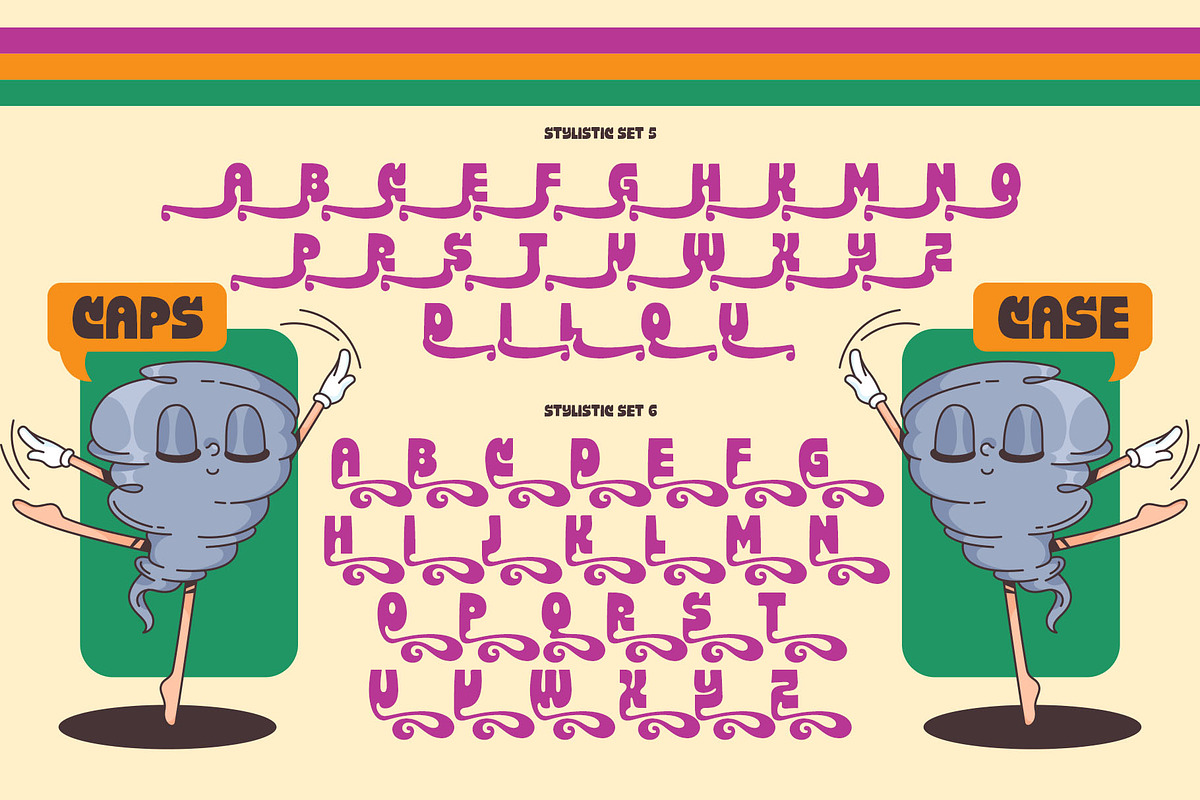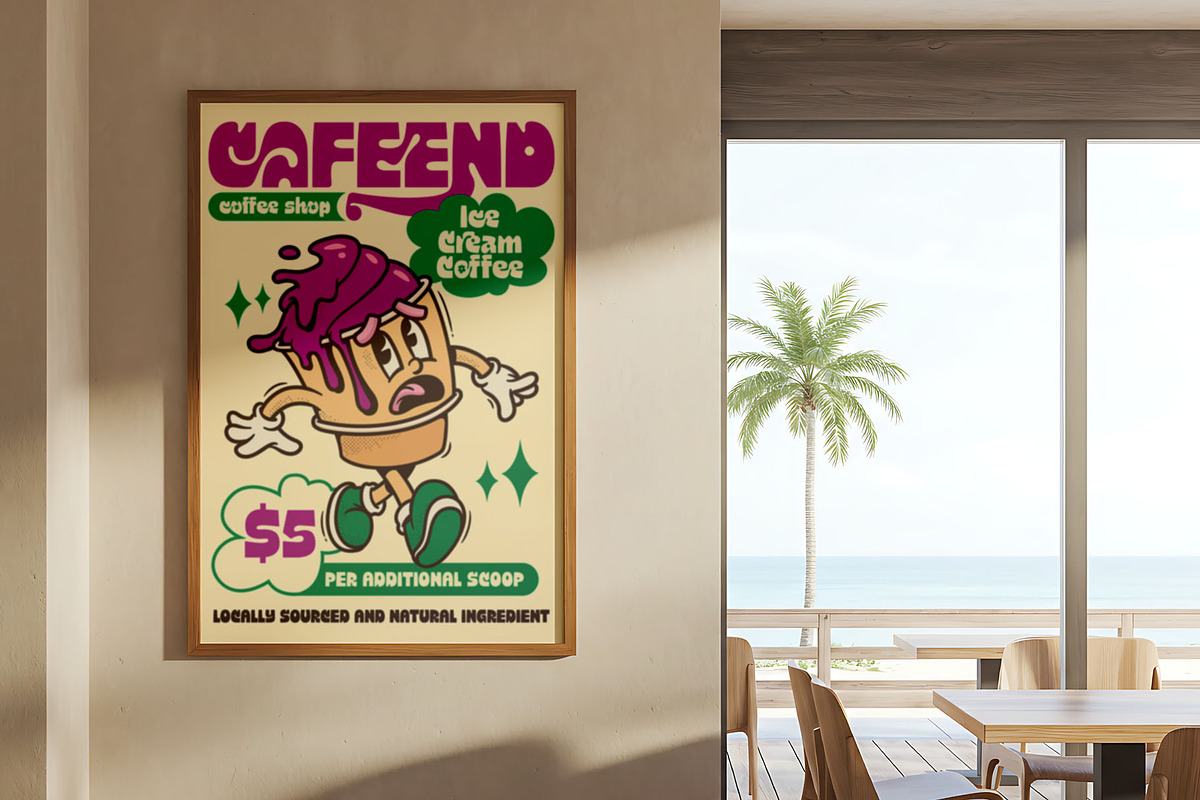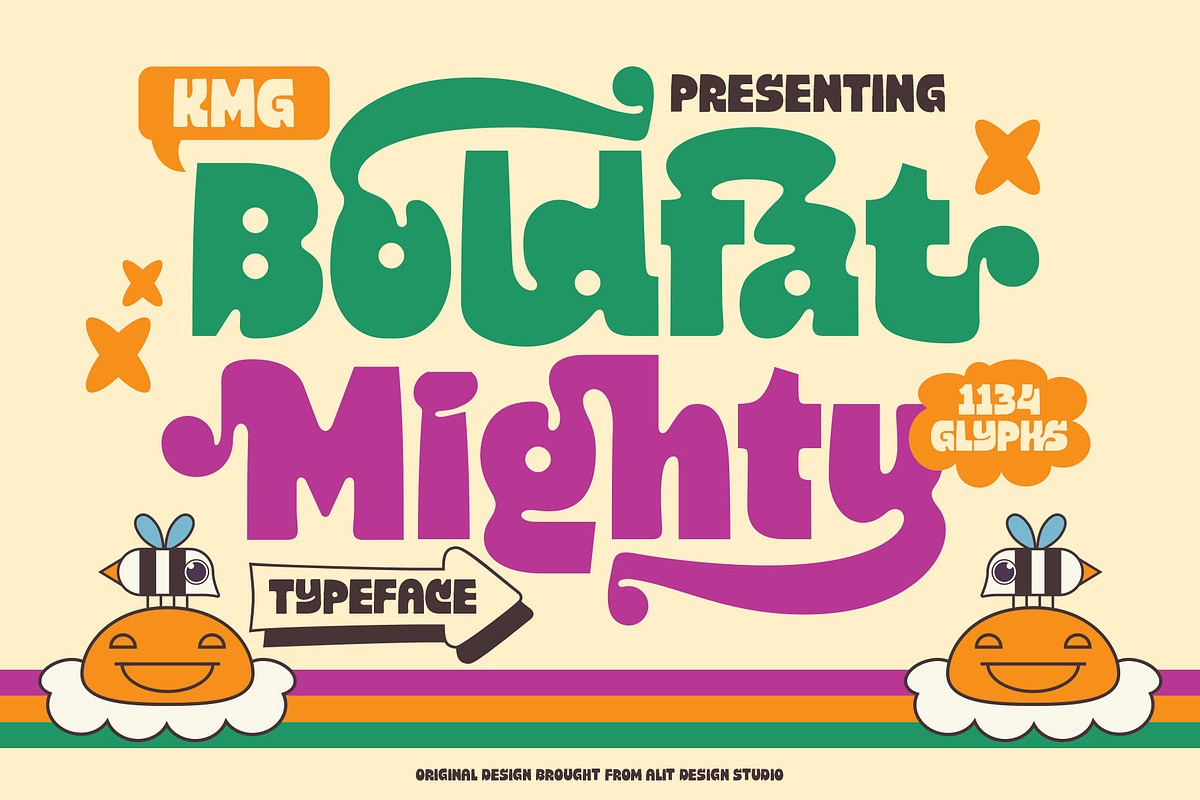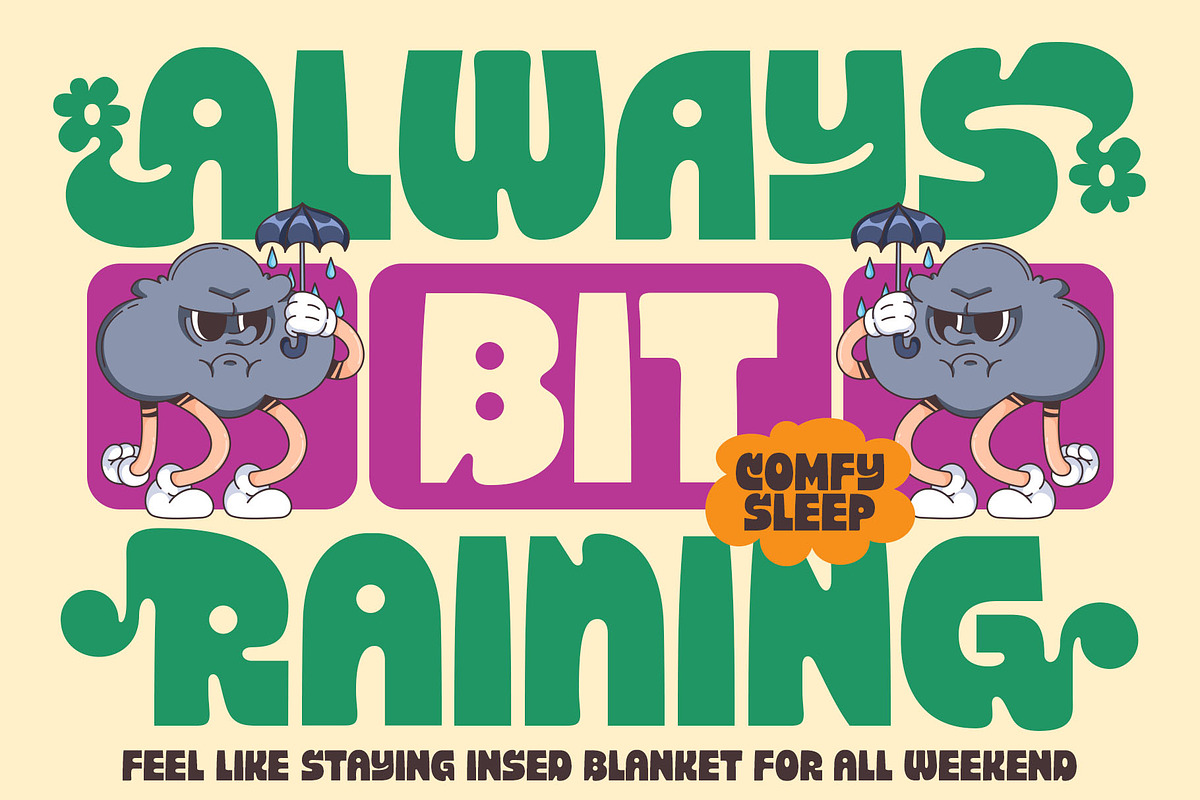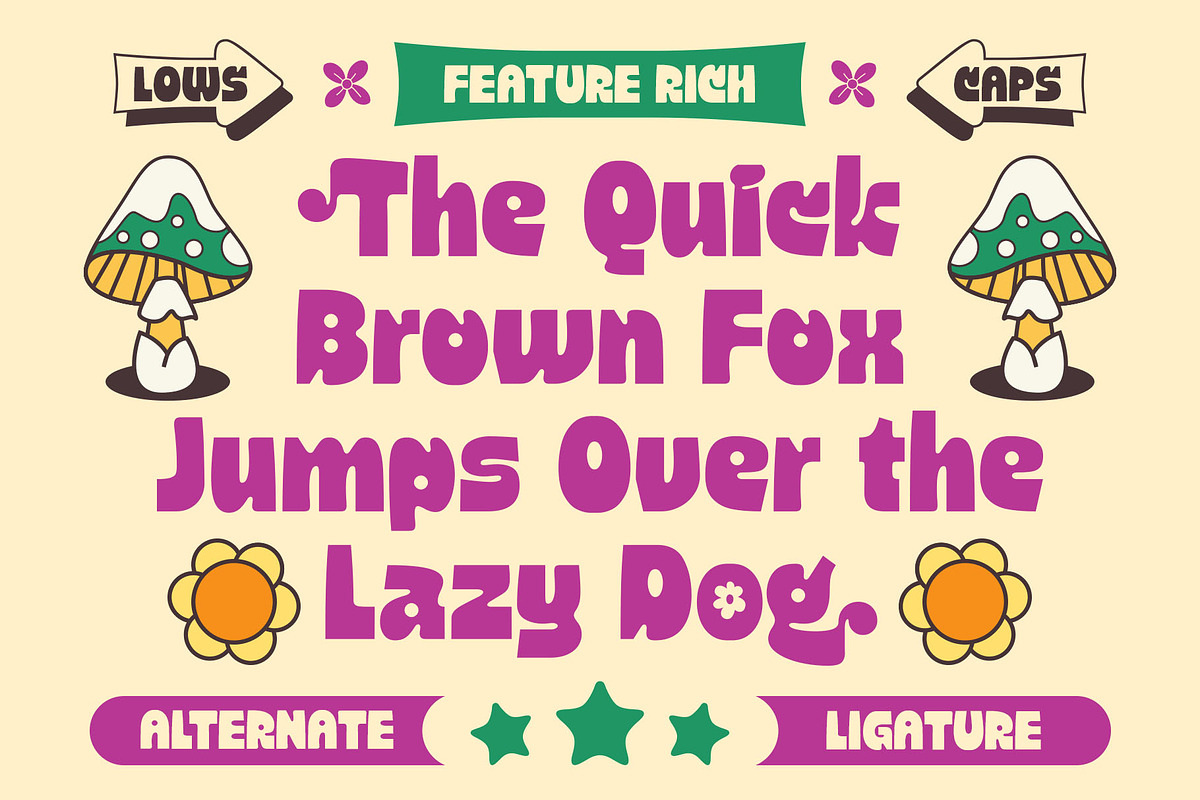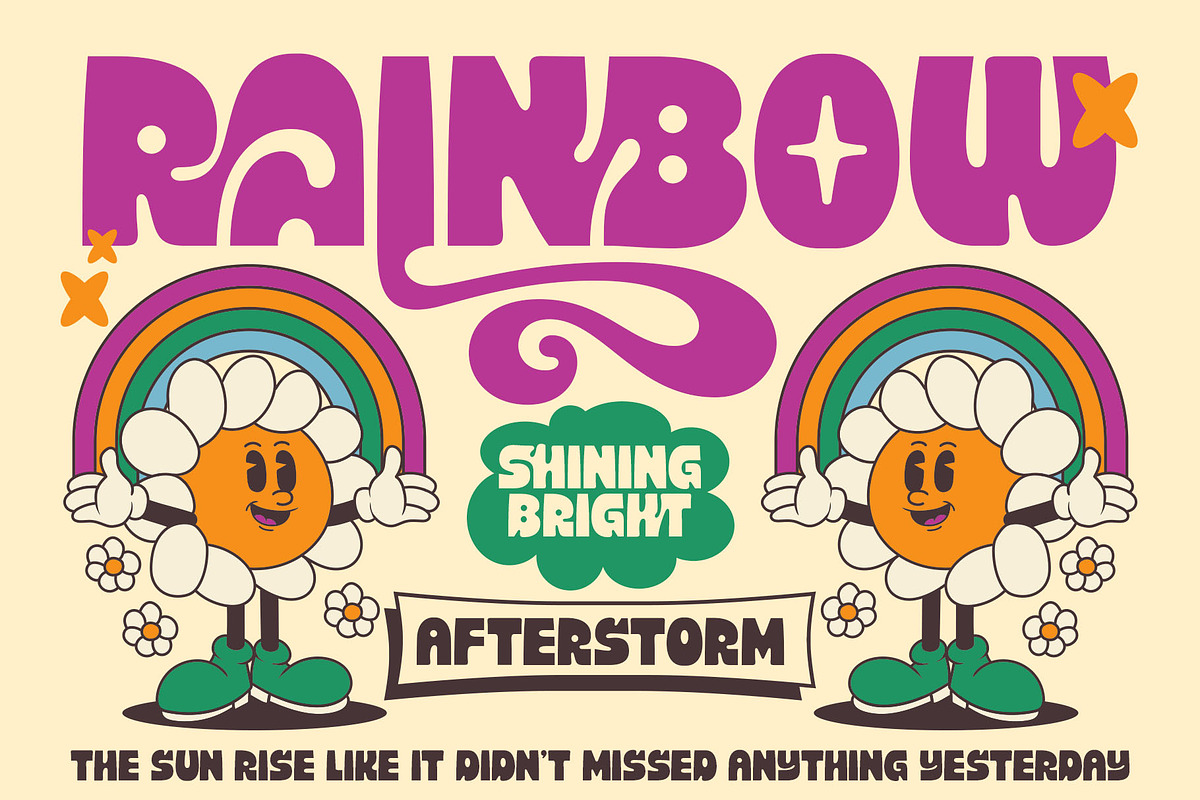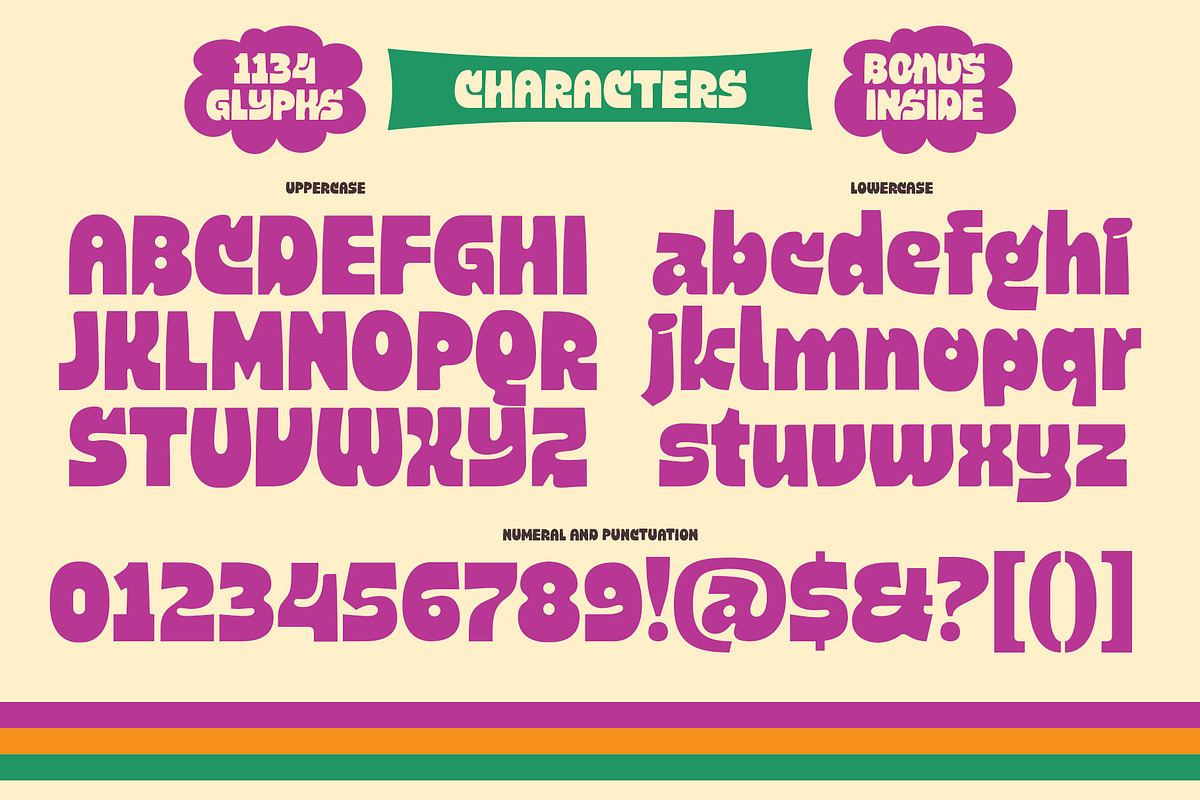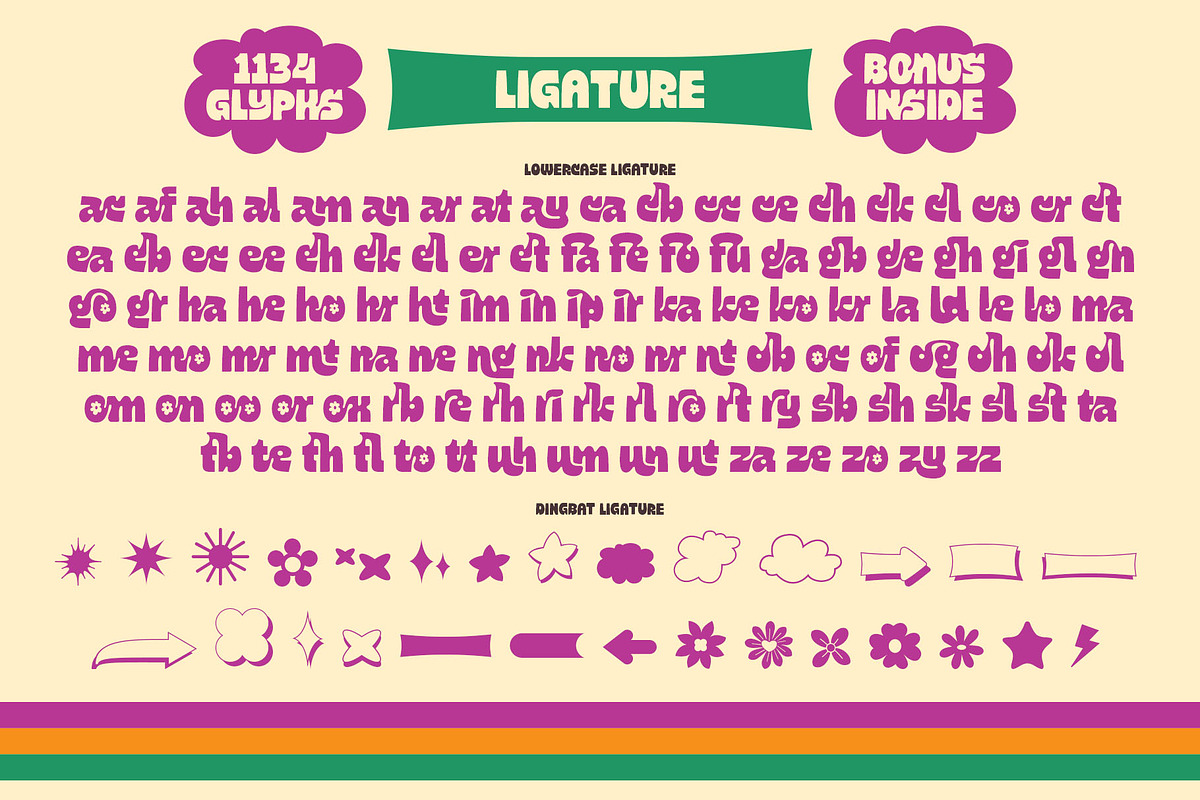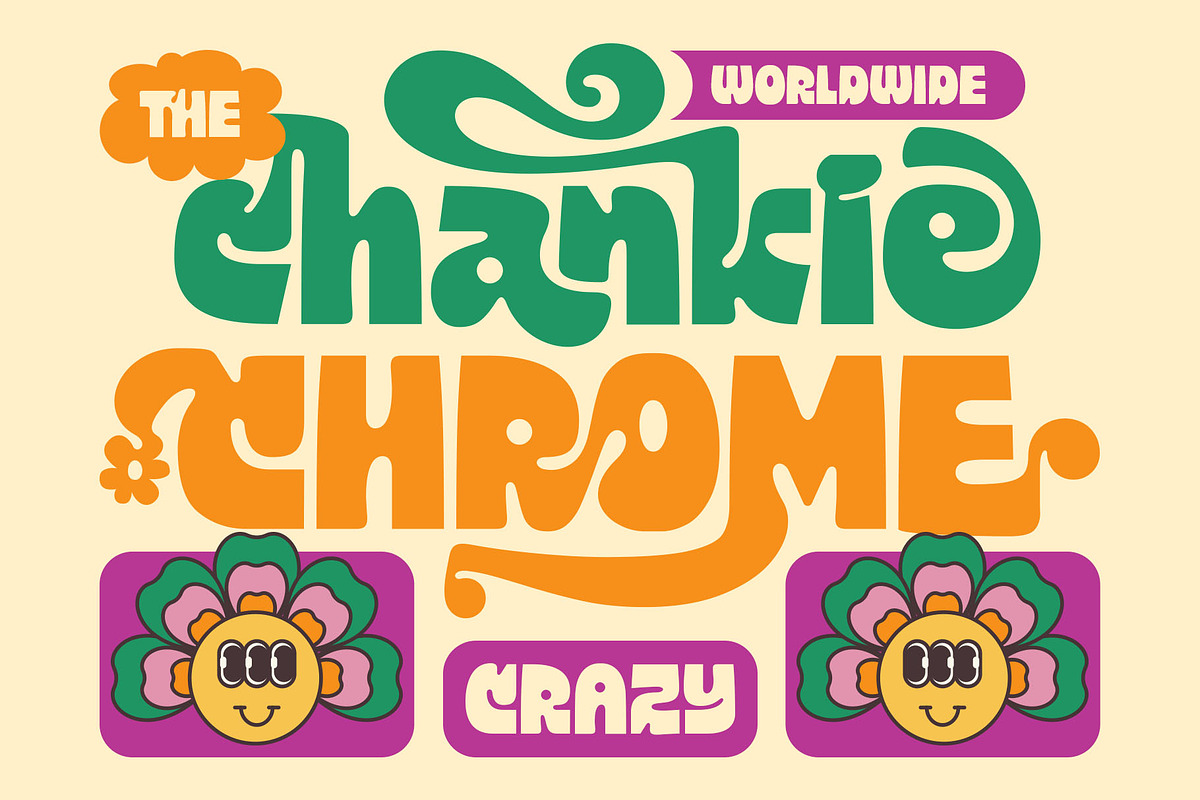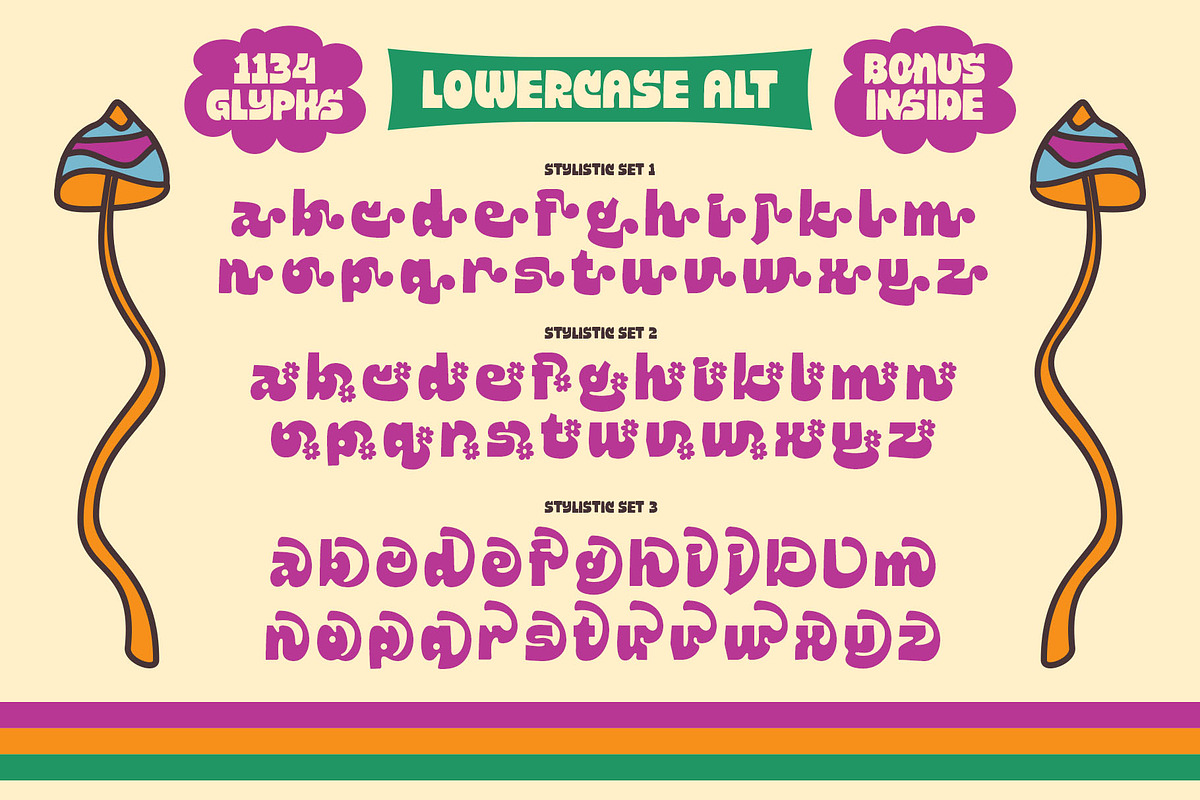
Boldfat Mighty Tyepface
Unleash the Groovy Vibes with Boldfat Mighty Typeface!
Step back into the colorful, psychedelic era of the 1970s with Boldfat Mighty, a bold, bubbly, and unapologetically retro display typeface crafted by Alit Design Studio. Bursting with cheerful energy and a distinctly quirky personality, this font is designed to make your projects pop with nostalgic fun and "peace stuffs" vibes.
Whether you are designing a far-out festival poster, vibrant streetwear apparel, or eye-catching packaging, Boldfat Mighty delivers that authentic vintage look with a playful, chunky weight that commands attention.
The "Mighty" Customization Power
What makes this typeface truly stand out is its massive library of 1134 glyphs. We’ve packed this font with an incredible variety of OpenType features, allowing you to custom-build your typography to perfectly fit your concept.
- 10 Stylistic Sets: From swirly, sweeping tails and "side wings" to characters embedded with retro daisy motifs, the alternate options are endless.
- Extensive Ligatures: A huge set of custom uppercase ligatures ensures your text flows naturally and looks like bespoke, hand-drawn retro lettering.
- Quirky Alternates: Mix and match uppercase and lowercase alternates to create odd, messy, and totally unique typographic compositions.
- Retro and vintage-themed branding
- Music festival posters and flyers
- Streetwear and merchandise design (t-shirts, tote bags, stickers)
- Playful product packaging
- Social media graphics and YouTube thumbnails
- Children's books and quirky editorial designs
- Multilingual Support: Broad language support to bring your retro concepts to a global audience.
Bring the concept, get weird, and stay cheerful with the Boldfat Mighty Typeface!